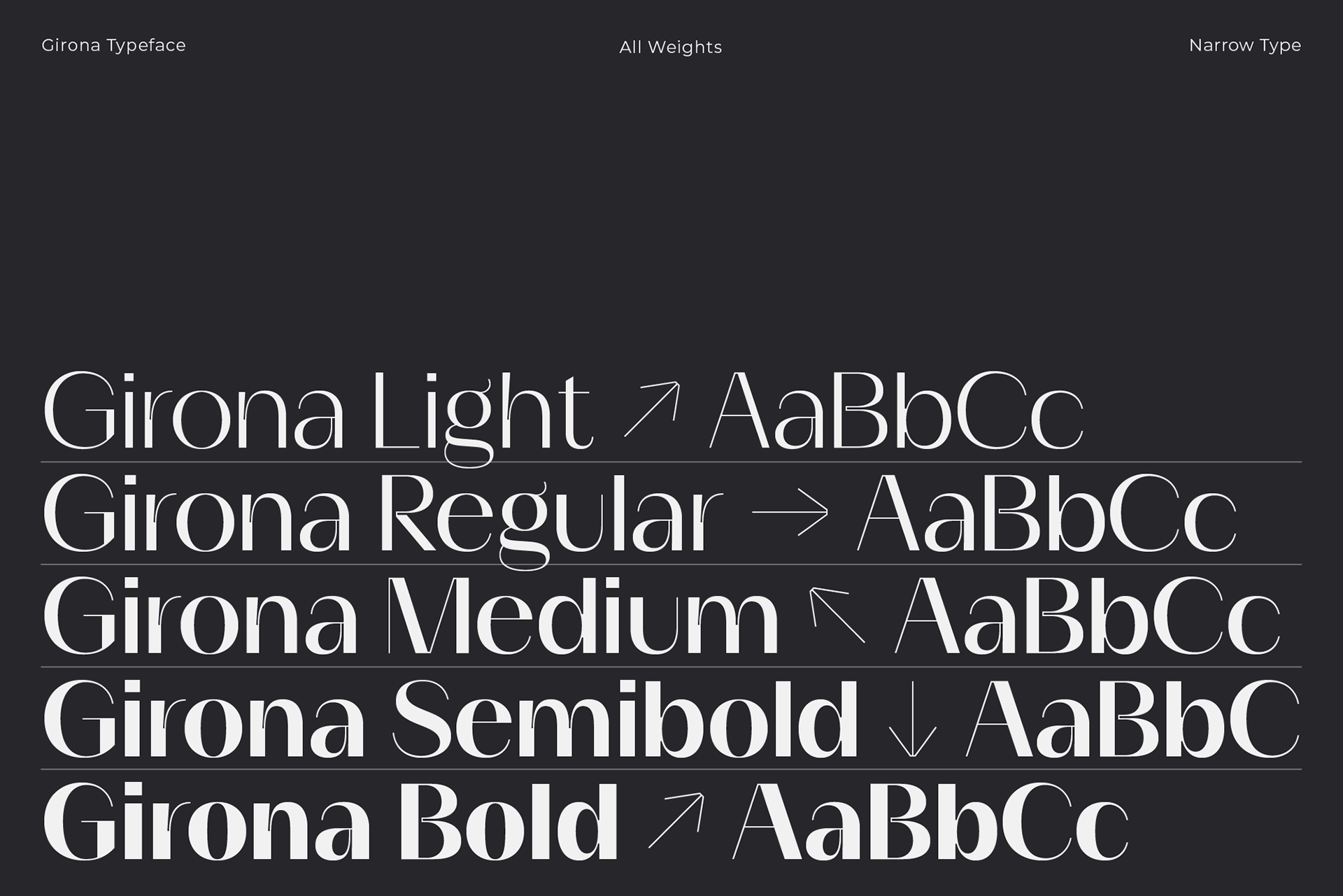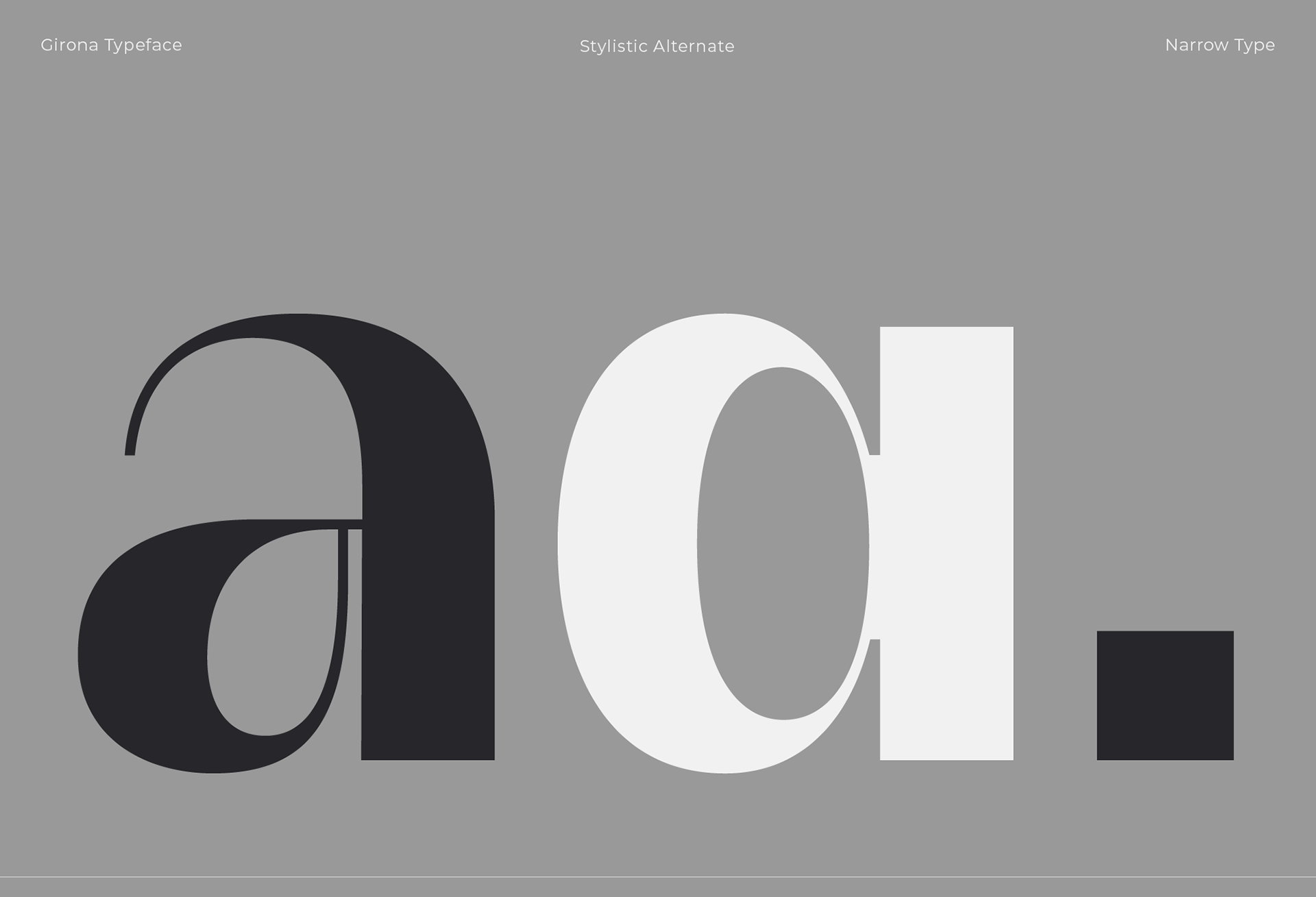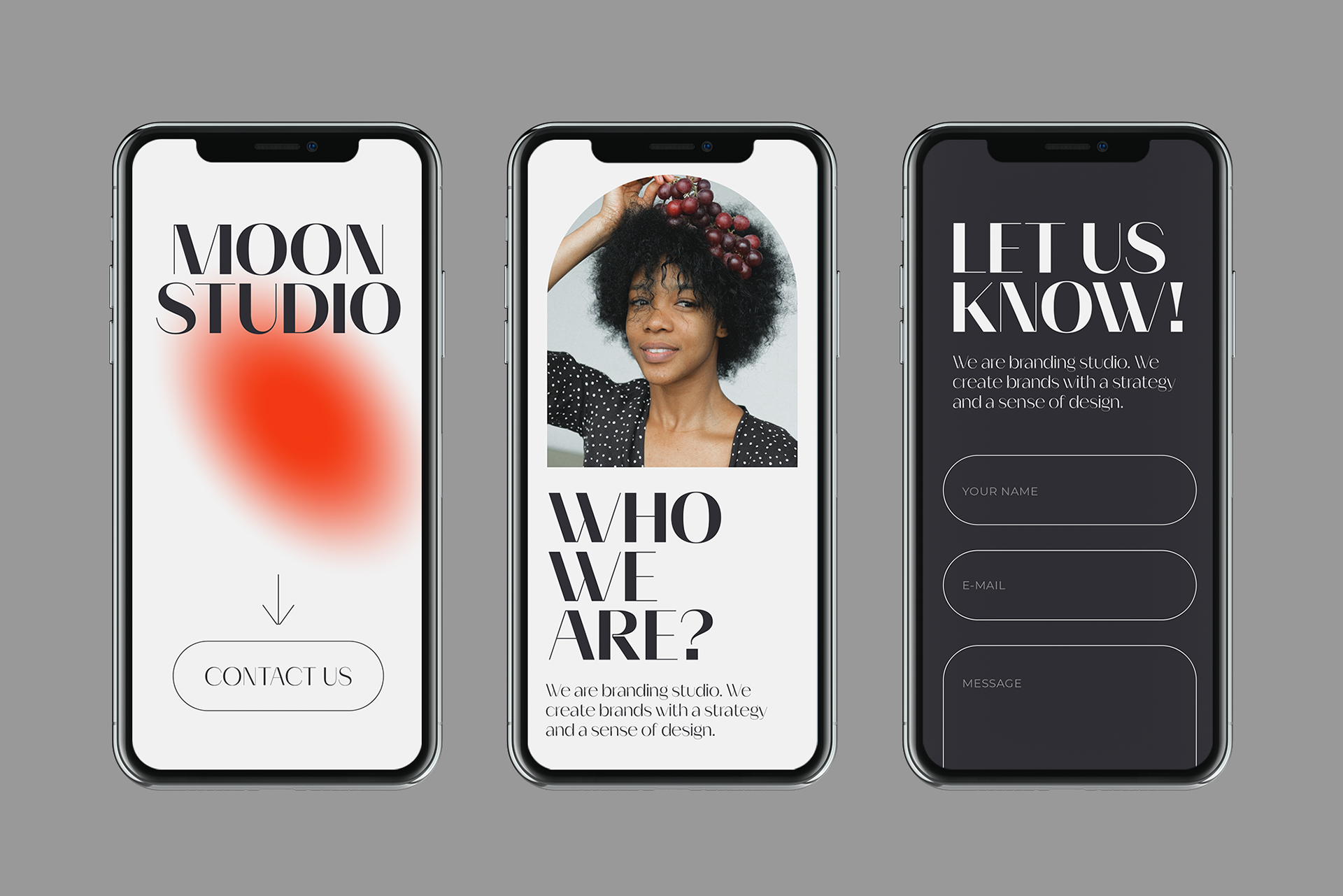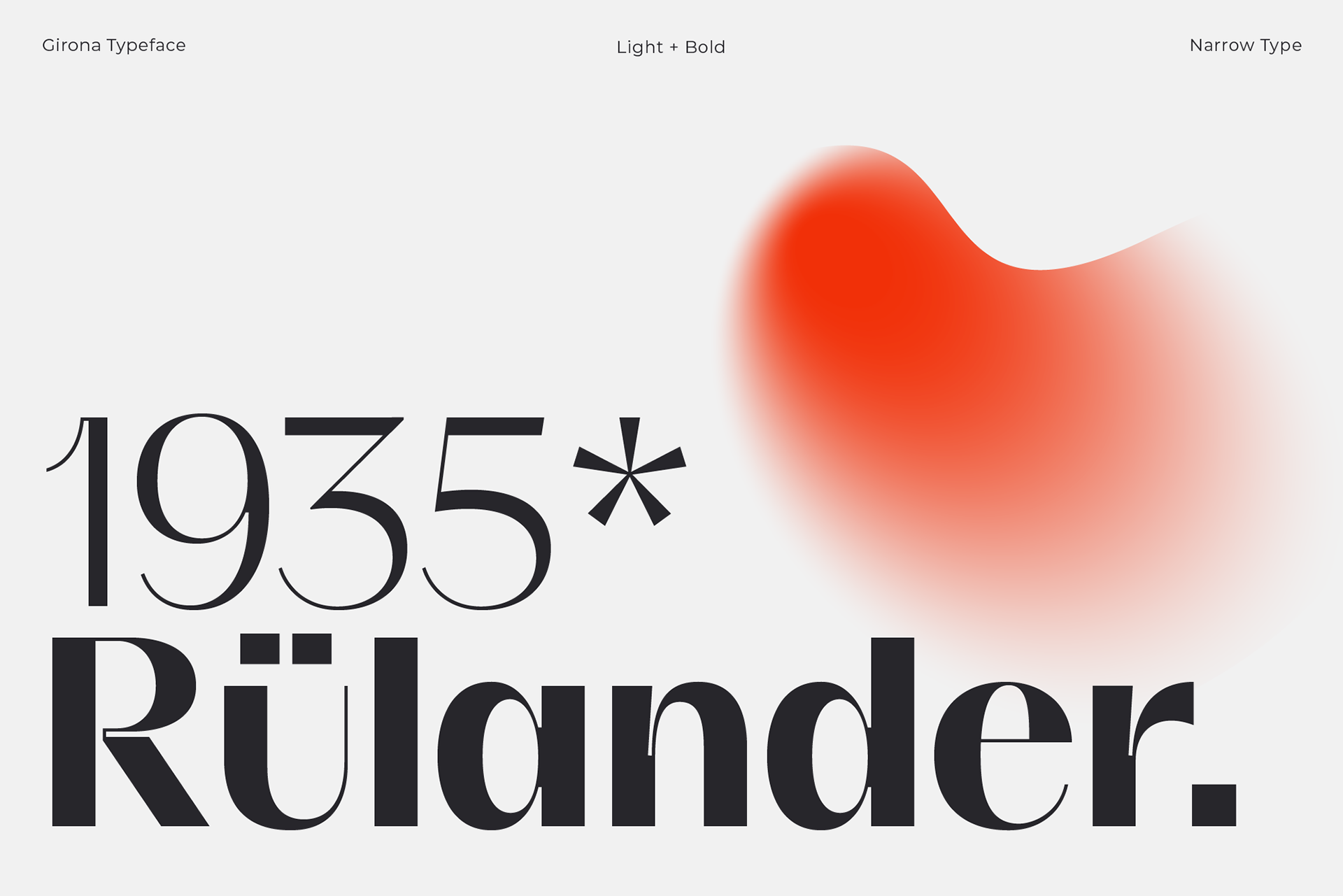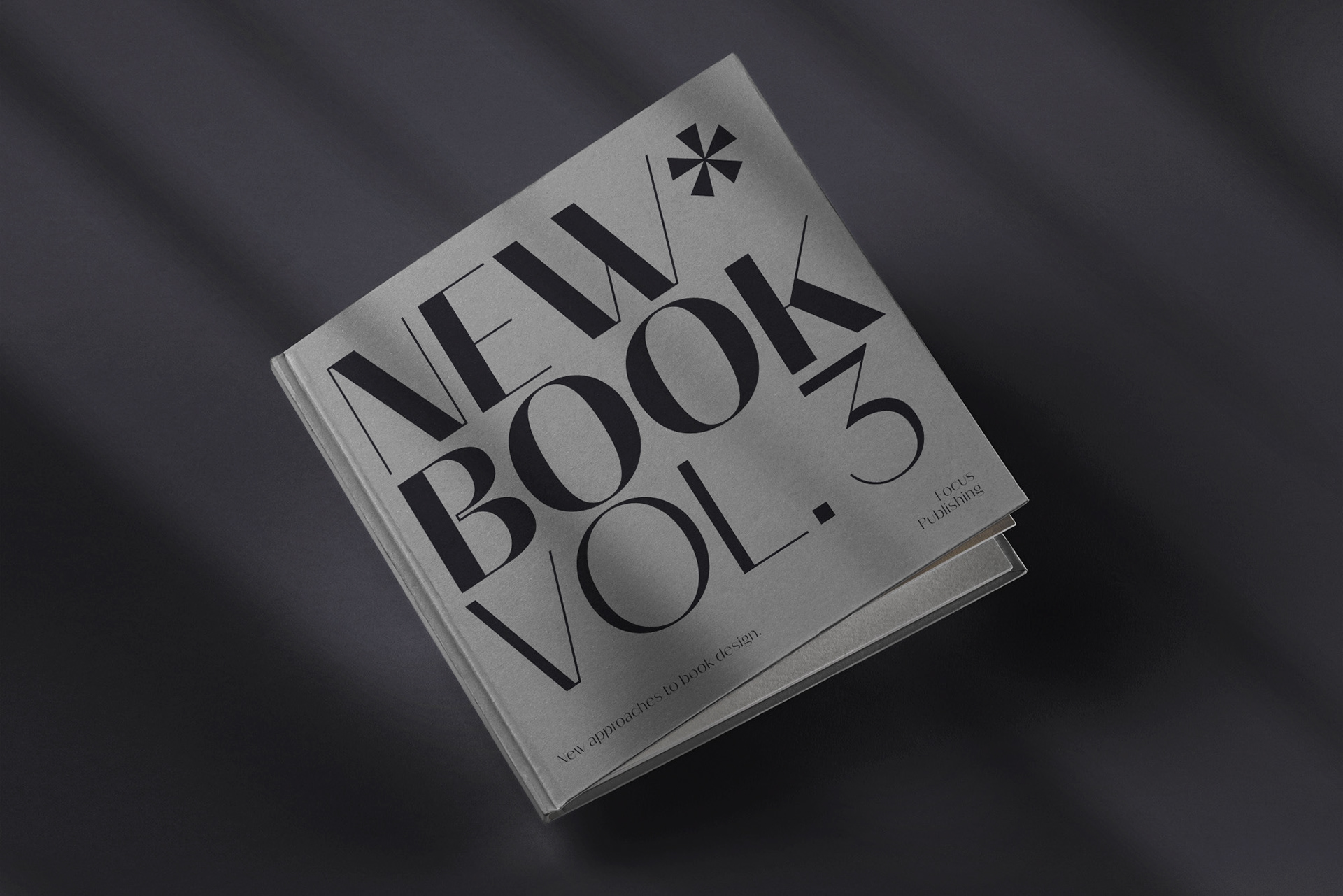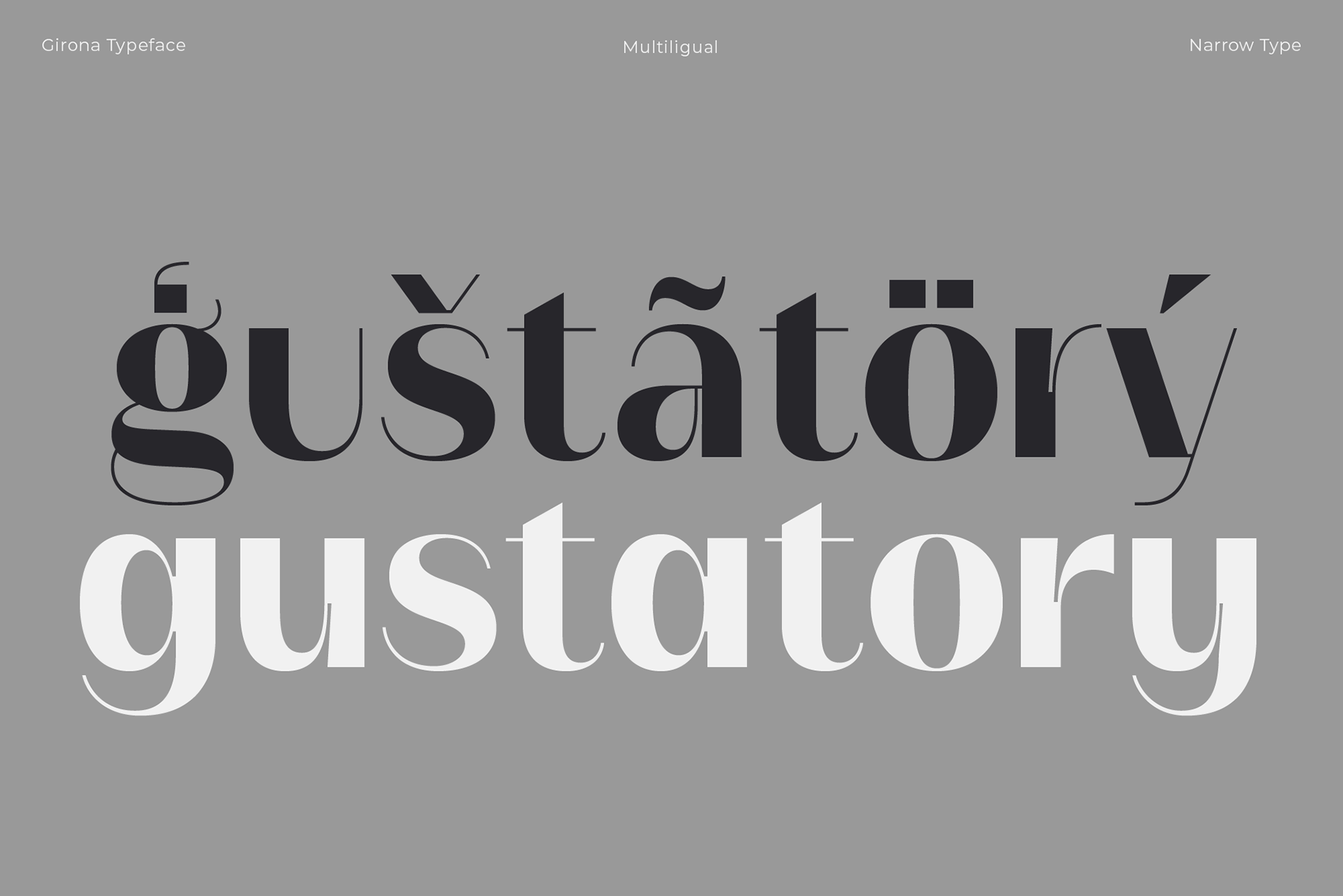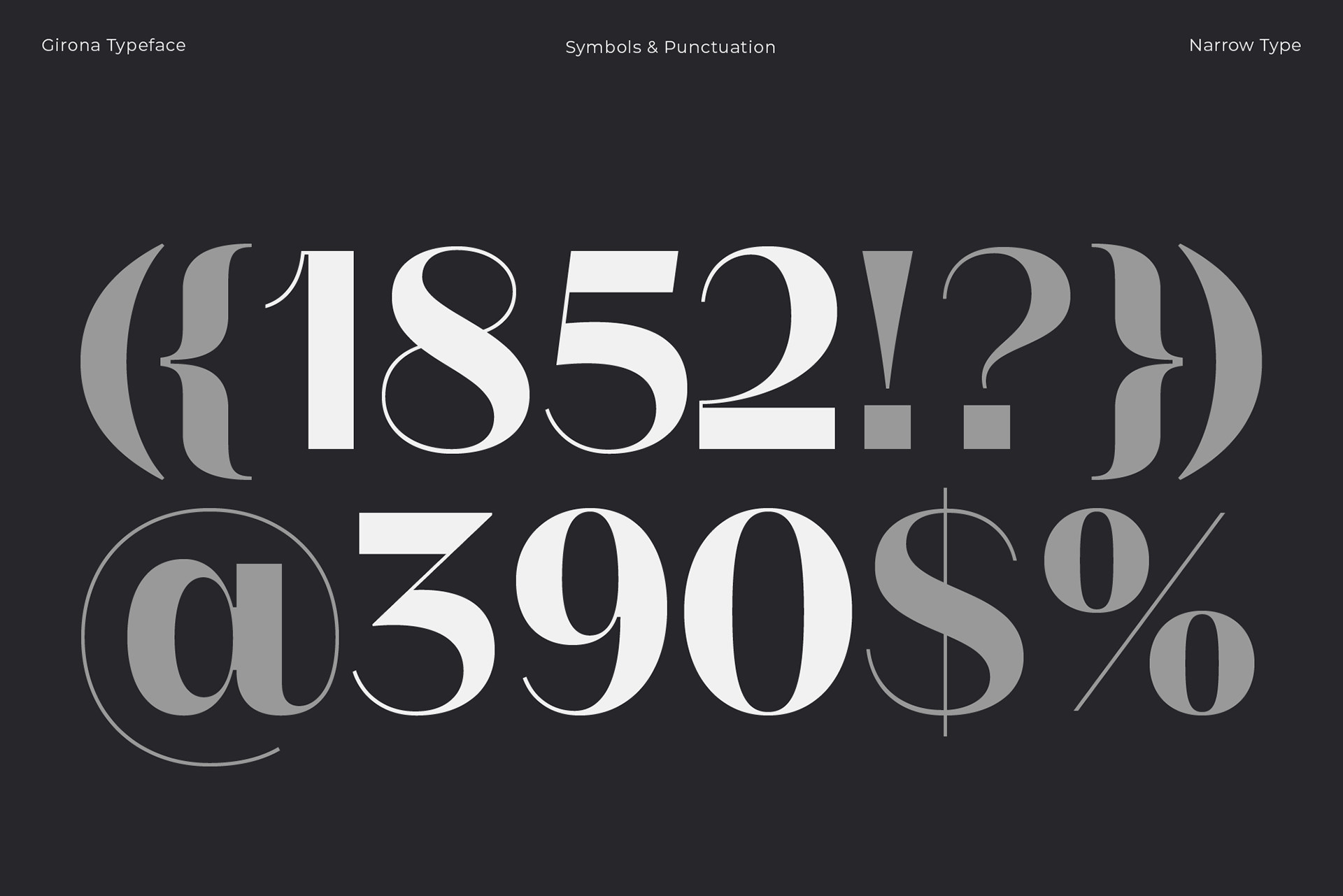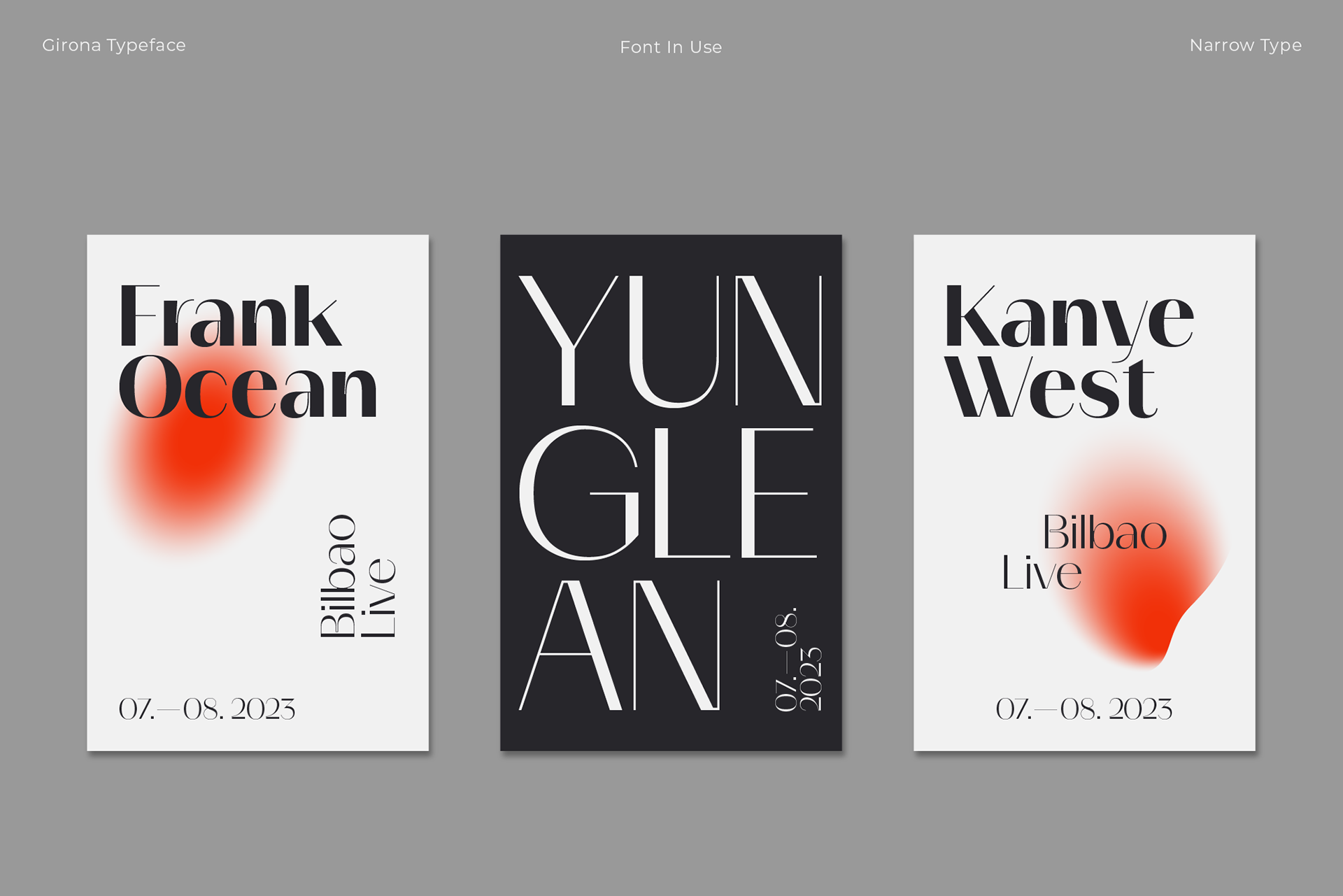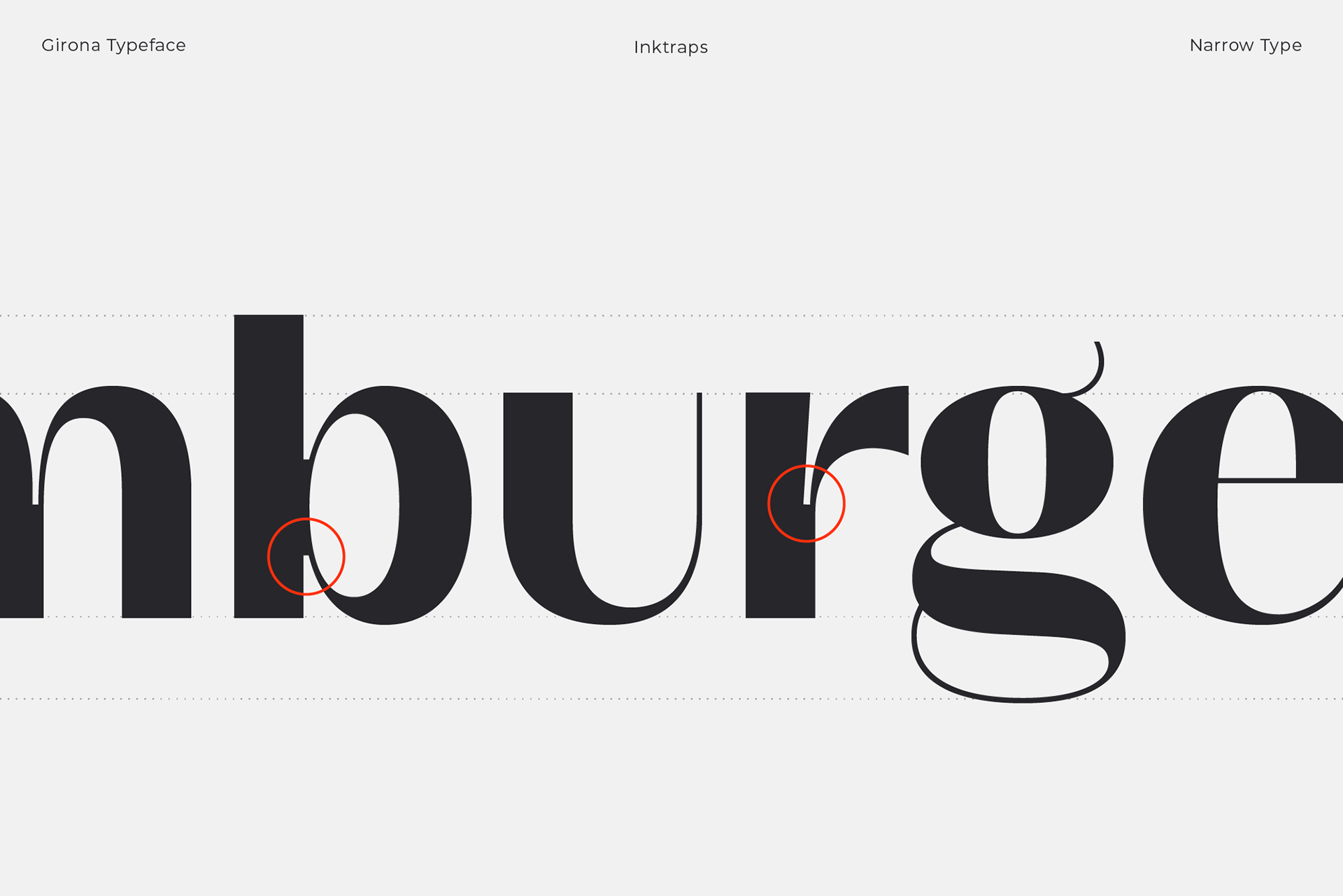
Girona is a contrasting sans serif typeface which comes in 5 weights from light to bold. Large inktraps and many playful details create a modern typeface with a distinctive look. Girona offers many discretionary and standard ligatures. With different stylistic sets you can change the feel of your design from more delicate to more bold. It’s a perfect typeface for branding, editorial design, logo design and many others. Girona works best in larger sizes or headlines.